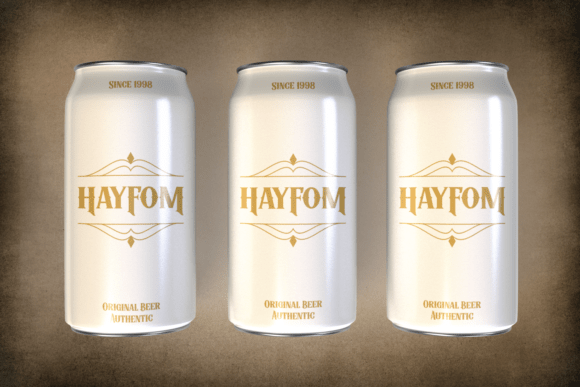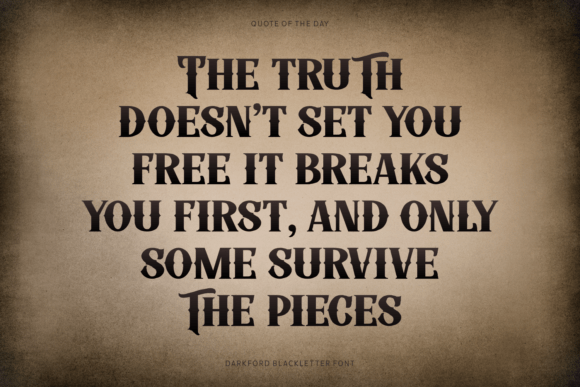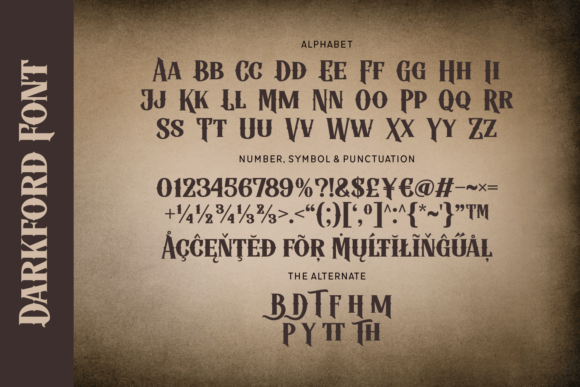
Introduction to Darkford Font
Do you ever find yourself lost in a world of creativity, scrolling through design inspiration boards, and stumbling upon that perfect font that sets your project ablaze? For designers, that ‘aha’ moment is priceless. It’s the spark that ignites a new idea, a fresh perspective, or a bold statement. And for many creatives, that moment often comes with the discovery of a remarkable font – like the enchanting Darkford Font.
Darkford Font is more than just a font – it’s a design resource that can elevate your creative project from ordinary to extraordinary. Its unique blend of traditional Gothic flair and sleek modern details makes it the perfect choice for fantasy branding, medieval game titles, book covers, and any design that requires an old-world charm with a contemporary edge.
- Unique, modern design with subtle flair, ideal for creative projects that require a touch of sophistication
Honest Review: Darkford Font
I recently had the chance to work with the Darkford Font, and I must say it’s been a great addition to my design resource arsenal. This high-quality font is perfect for any creative project that requires a sophisticated touch.
Here are some of the things that really stood out to me:
- ✨ The Darkford Font has a unique, elegant design that adds a touch of sophistication to any text.
- ⚠️ The font may not be as versatile as some other options, particularly when it comes to smaller text sizes.
Overall, I’m really impressed with the Darkford Font. While it may not be perfect, its unique design and high quality make it a valuable addition to any designer’s toolkit. I’d definitely recommend it for anyone looking for a sophisticated font for their next creative project.
Tips for Getting the Most Out of Darkford Font
To get the most out of the Darkford Font, use it in combination with other design elements, such as images and graphics. You can also experiment with different font sizes and colors to create a unique look.
The Darkford Font is commonly used for creative projects, including logos, posters, and business cards. It is also used for presentations and documents, such as PowerPoint and Word.